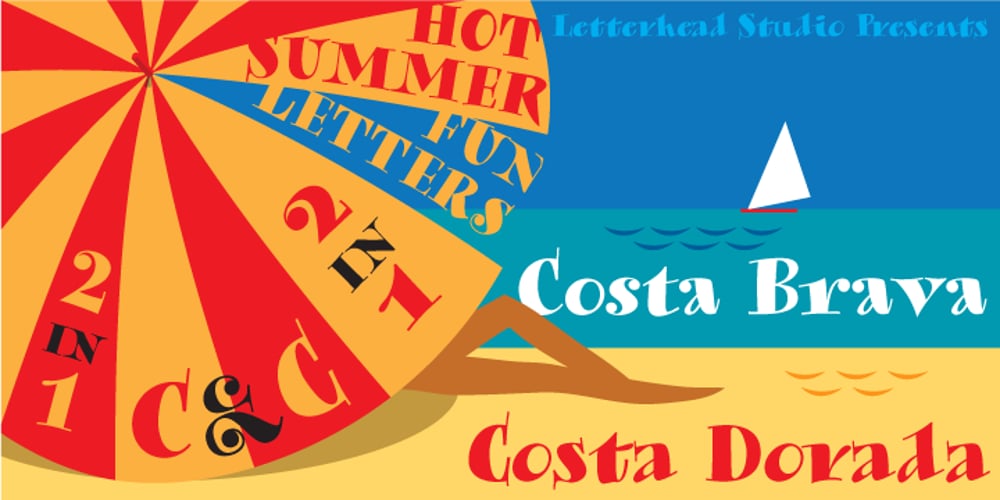
Costa Brava Font Family was designed by Yuri Gordon and published by Letterhead Studio-YG. Costa Brava contains 1 styles and family package options. Costa Brava and Costa Dorada are devoted unforgettable days on beaches of tender Mediterranean sea in Catalonia. Enjoy! Both fonts were originally created in the summer 2003. The OpenType version, with extended Latin characters, was released in 2009.